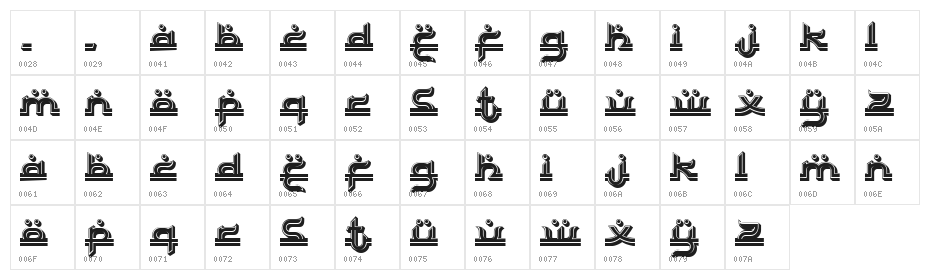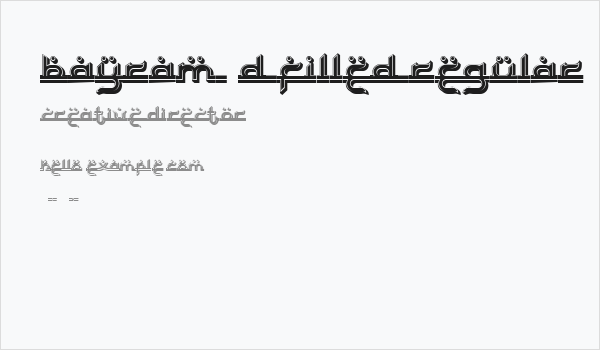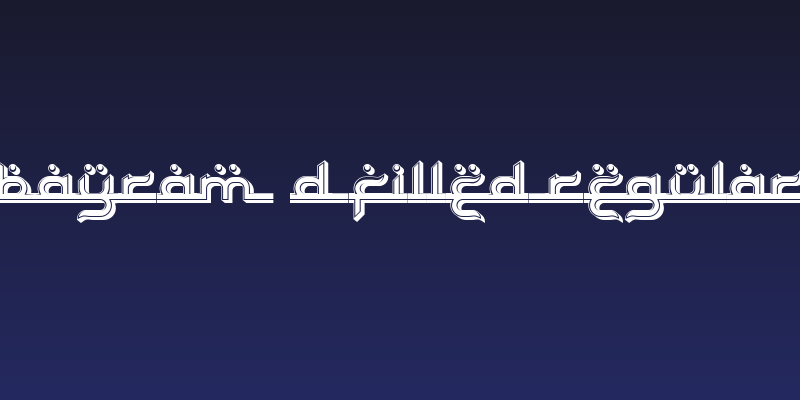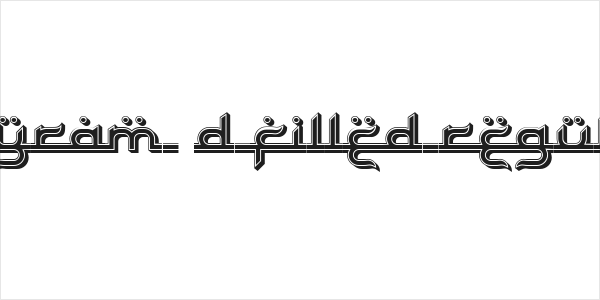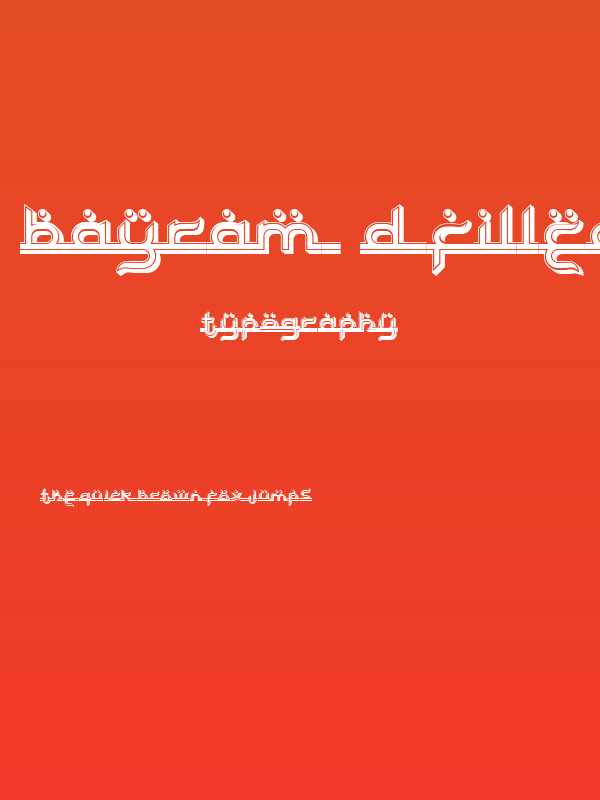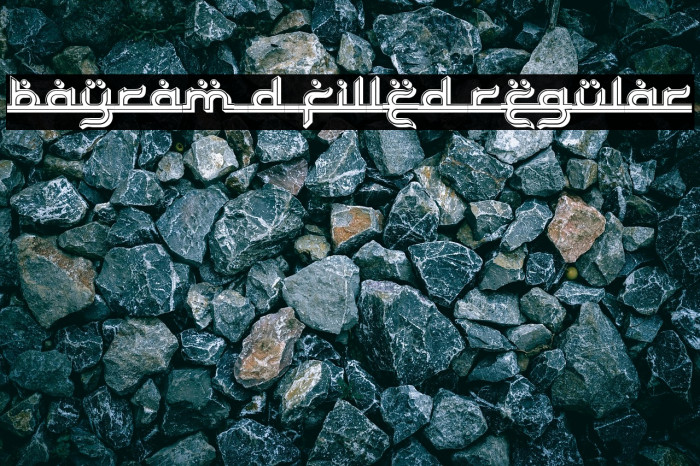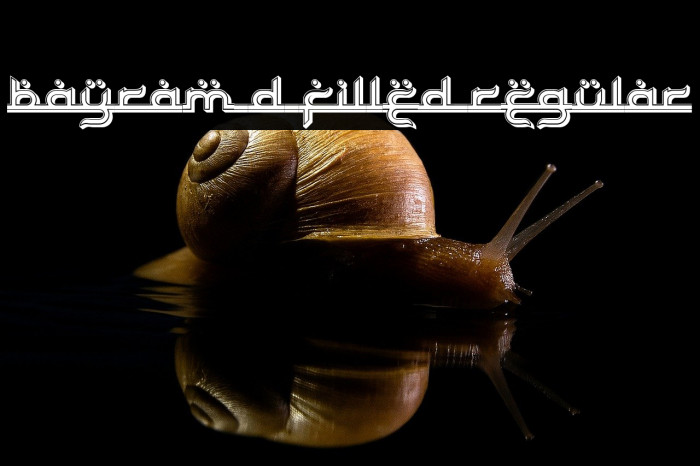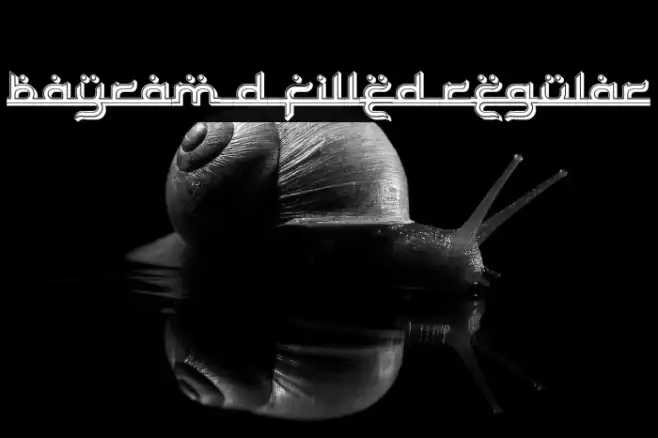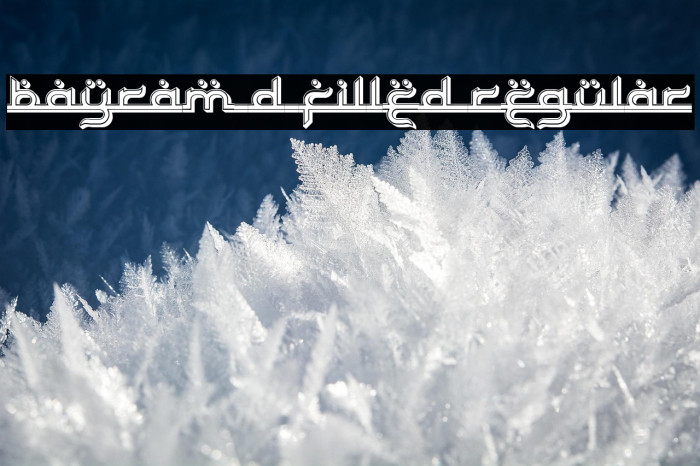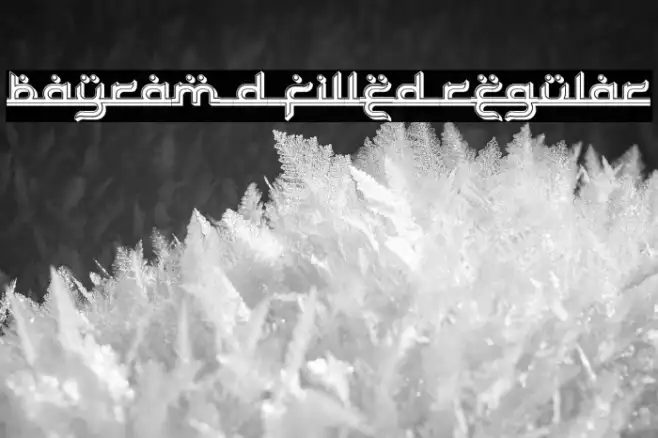
Bayram 3D Filled Regular Font
Bayram 3D Filled Regular Description
This font features a bold, three-dimensional design with a filled appearance, creating a striking visual impact. The characters are interconnected with a continuous line that runs through the middle, adding a unique, cohesive element to the typeface. The style is distinctly modern with a decorative flair, making it stand out in any design. The geometric shapes and sharp angles give it a futuristic feel, while the filled effect adds depth and dimension. This font is perfect for projects that require a bold statement and a touch of creativity.
| Proposed Projects | Ideal for posters, logos, headlines, and any design needing a bold, modern touch. |